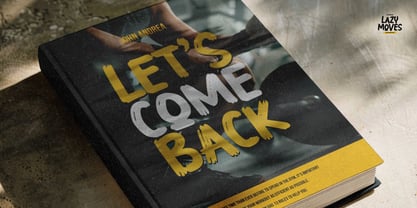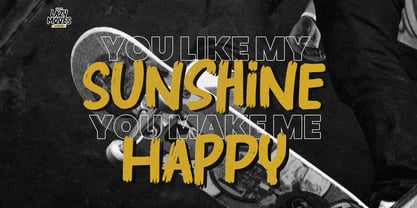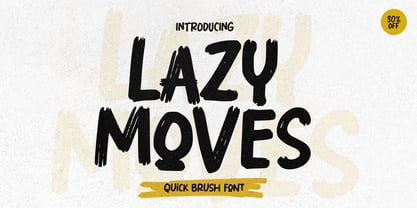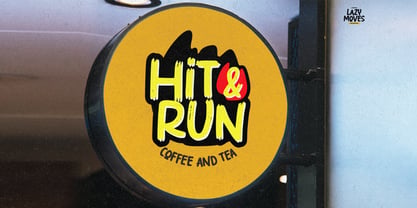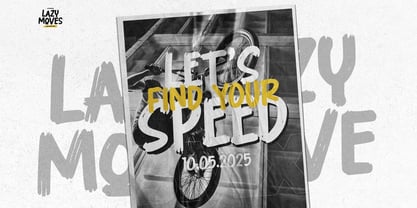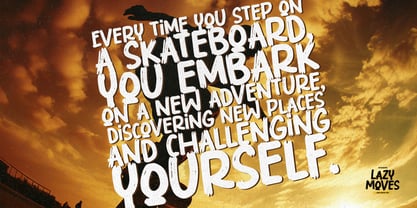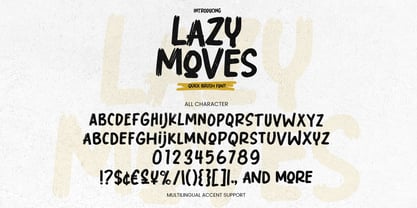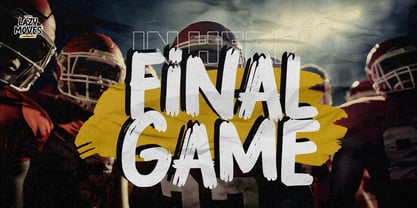
Lazy Moves
par Gassstype
La famille de polices Lazy Moves a été conçue par Abdul Malik Wisnu et publiée par Gassstype. Lazy Moves contient 1 styles. En savoir plus sur cette famille
Introducing our new product, Font Lazy Moves Quick Brush Font. This textured natural style features a classy brush handwritten design with a grunge touch. Lazy Moves is perfect for your next creative project, including logos, printed quotes, invitations, cards, product packaging, headers, logotypes, letterheads, posters, and more. This font is ideal for creative endeavors such as watermarks on photography and is perfect for logos and branding, advertisements, product designs, stationery, wedding designs, labels, and special events. It adds a charming, authentic, and relaxed characteristic, giving a more natural look to your text.